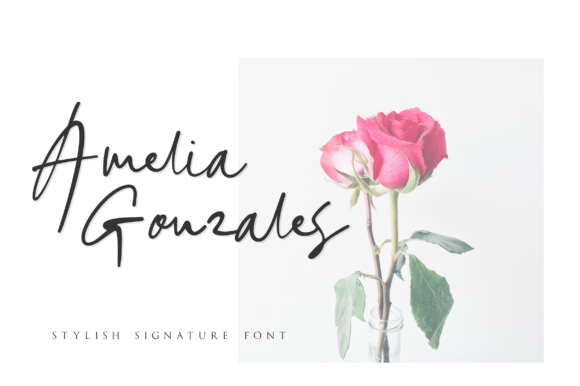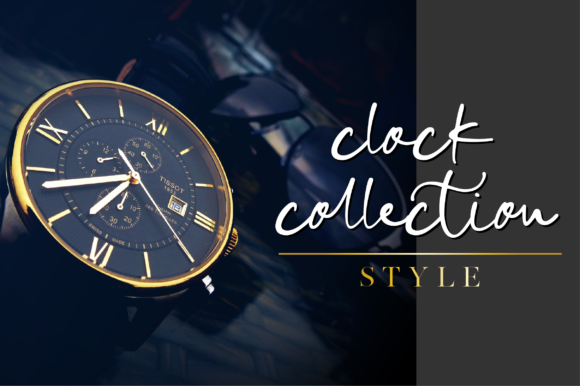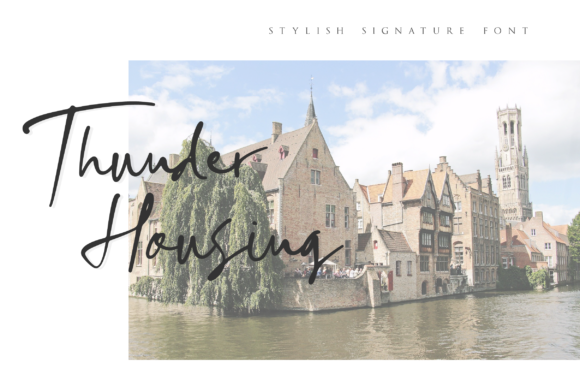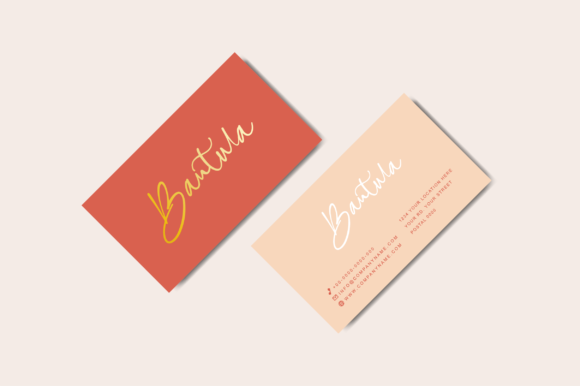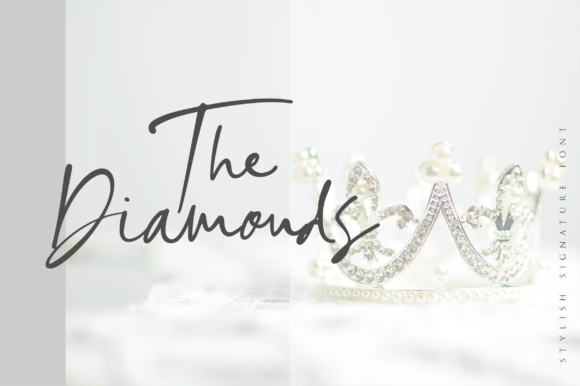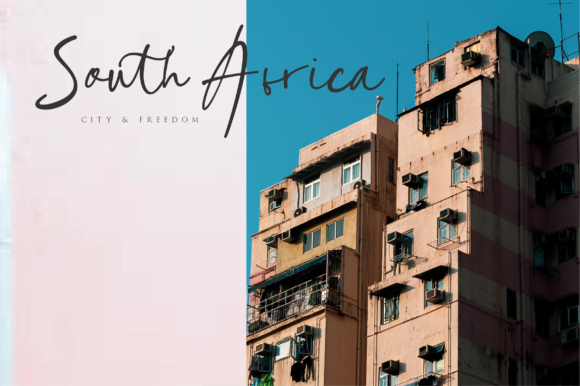
Introduction to Sinta Mellia Font
Sinta Mellia is inspired by classic typography and brings its own unique style to any design project.
This fantastic handwritten font is best suited for headlines of all sizes, as well as for blocks of text that have both maximum and minimum variations .